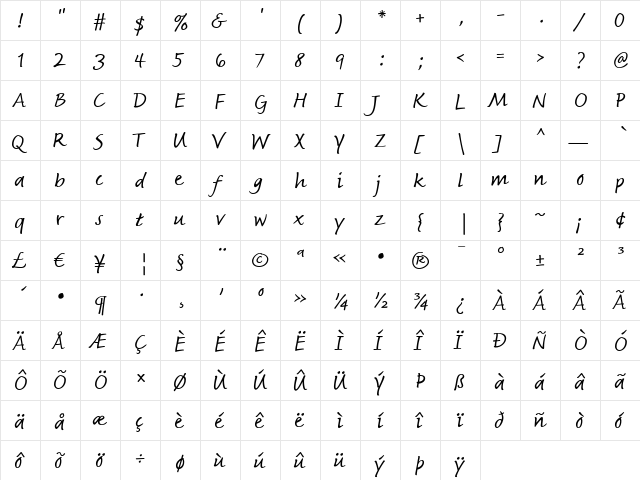
Fineprint Regular
Design Context for Fineprint Typeface
Fineprint offers clean, dependable letterforms without strong stylistic allegiance, making it a practical choice for designers who need flexibility.
Pro Tip: Pair Fineprint with a font of contrasting weight or personality to build a more expressive typographic hierarchy.